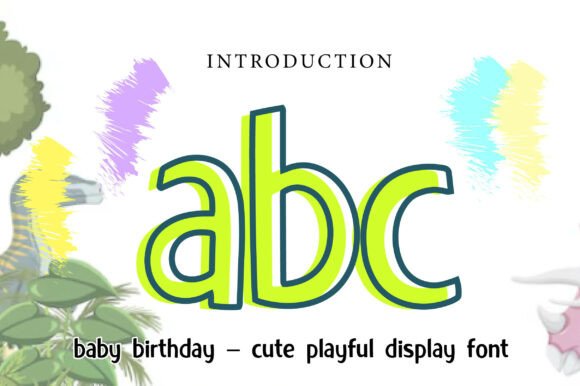
Baby Birthday Font: The Ultimate Playful Display Font for Joyful Designs
Are you looking for a font that embodies the essence of childhood and joy? Look no further than Baby Birthday, a delightful display font that is sure to capture the hearts of your audience. Crafted with passion, this font radiates an affable warmth, making it perfect for designs that require a bucketful of cuteness coupled with a friendly, easy-to-read typeface.
The Charm of Baby Birthday Font
Baby Birthday font is soft, endearing, and perfect for designs that ring the bells of childhood and joy. Its playful and charming design makes it an ideal choice for a wide range of projects, from striking invitations for little angels’ birthdays or baby shower cards that elicit a giggle, to nursery decor that twinkles with joy, or kids’ branding that bubbles with fun.
With Baby Birthday font, the design possibilities are endless. You can create:
- Awe-inspiring packaging that stands out on store shelves
- Posters that grab attention and leave a lasting impression
- Endearing social media graphics that connect with your audience
- Fun stickers and labels that add a personal touch to any project
Perfect for Print and Digital
Baby Birthday font is perfect for both print and digital designs. Its clear and easy-to-read design ensures that your message gets across, whether you’re creating:
- Business cards and brochures
- Social media posts and ads
- Website headers and footers
- Packaging and labeling
Why Choose Baby Birthday Font?
So, why choose Baby Birthday font for your next project? Here are just a few reasons:
- Unique and playful design: Baby Birthday font has a unique and playful design that sets it apart from other fonts.
- Easy to read: Despite its playful design, Baby Birthday font is easy to read, making it perfect for both print and digital designs.
- Versatile: Baby Birthday font can be used for a wide range of projects, from invitations and posters to social media graphics and packaging.
- High-quality: Baby Birthday font is a high-quality font that is crafted with passion and attention to detail.
Tips for Using Baby Birthday Font
Here are a few tips for using Baby Birthday font in your designs:
- Use it sparingly: While Baby Birthday font is perfect for headings and titles, it’s best to use it sparingly to avoid overwhelming your design.
- Pair it with other fonts: Baby Birthday font pairs well with other fonts, so don’t be afraid to experiment with different combinations.
- Experiment with colors: Baby Birthday font looks great in a variety of colors, so don’t be afraid to experiment and find the perfect color for your design.
In conclusion, Baby Birthday font is the ultimate playful display font for joyful designs. Its unique and playful design, ease of readability, and versatility make it perfect for a wide range of projects. Whether you’re a designer, crafter, or DIY enthusiast, Baby Birthday font is sure to bring a smile to your face and a touch of joy to your designs.